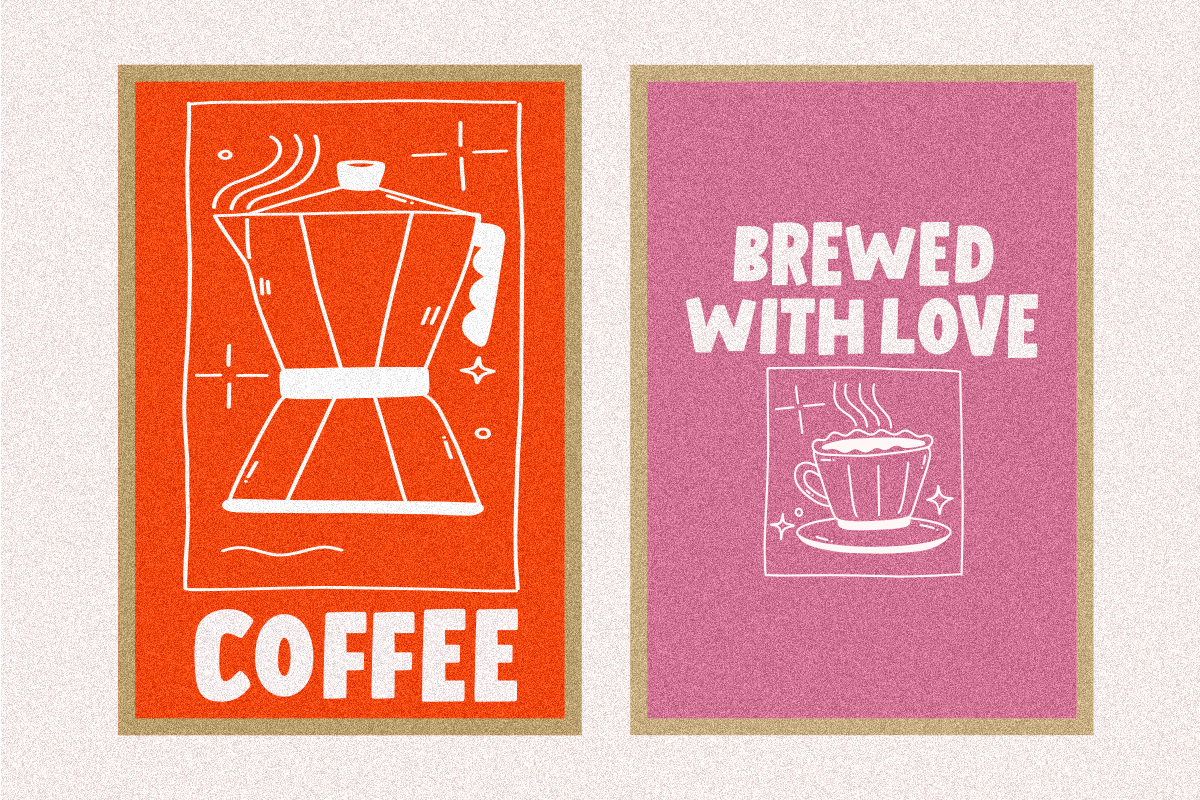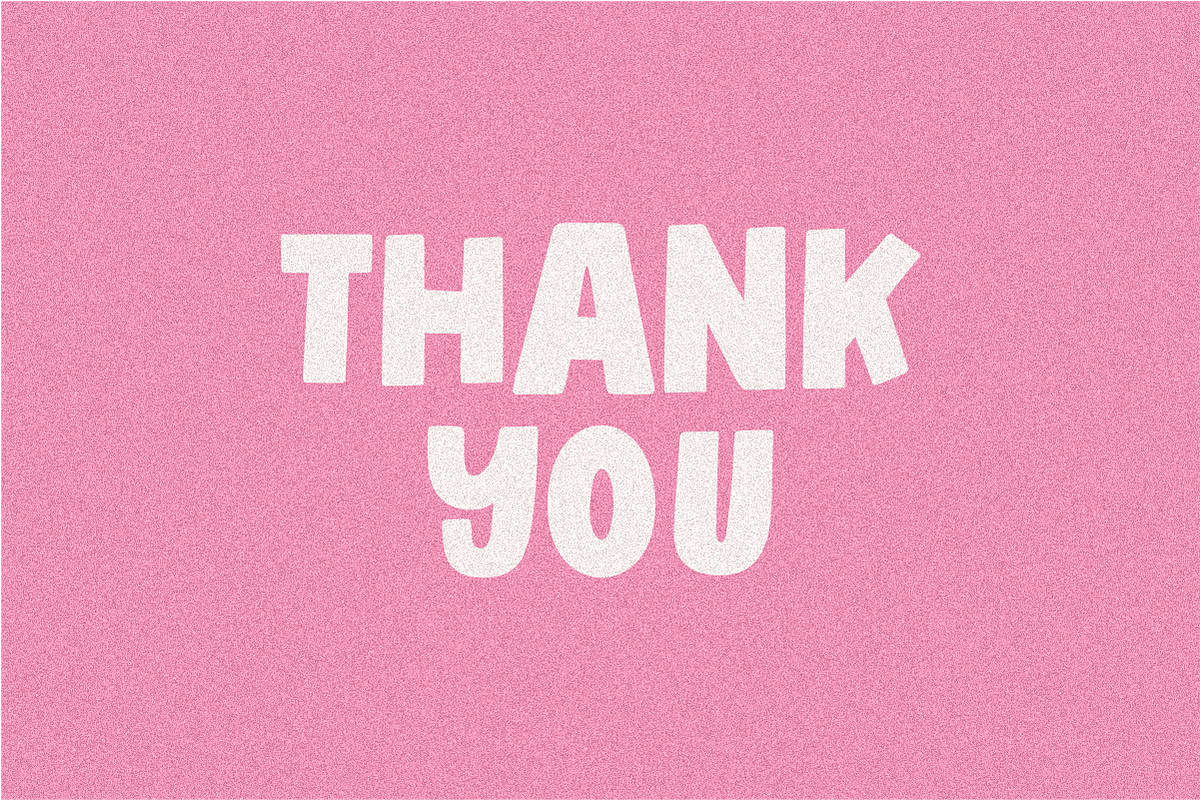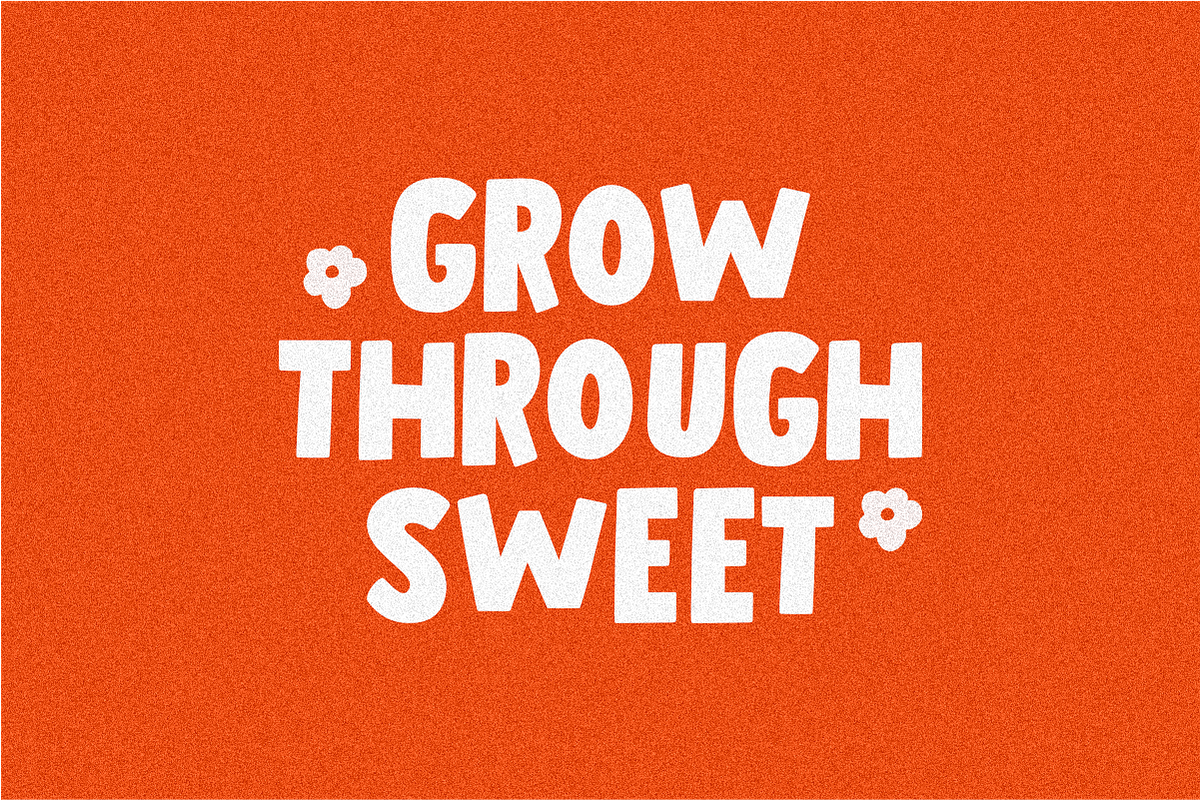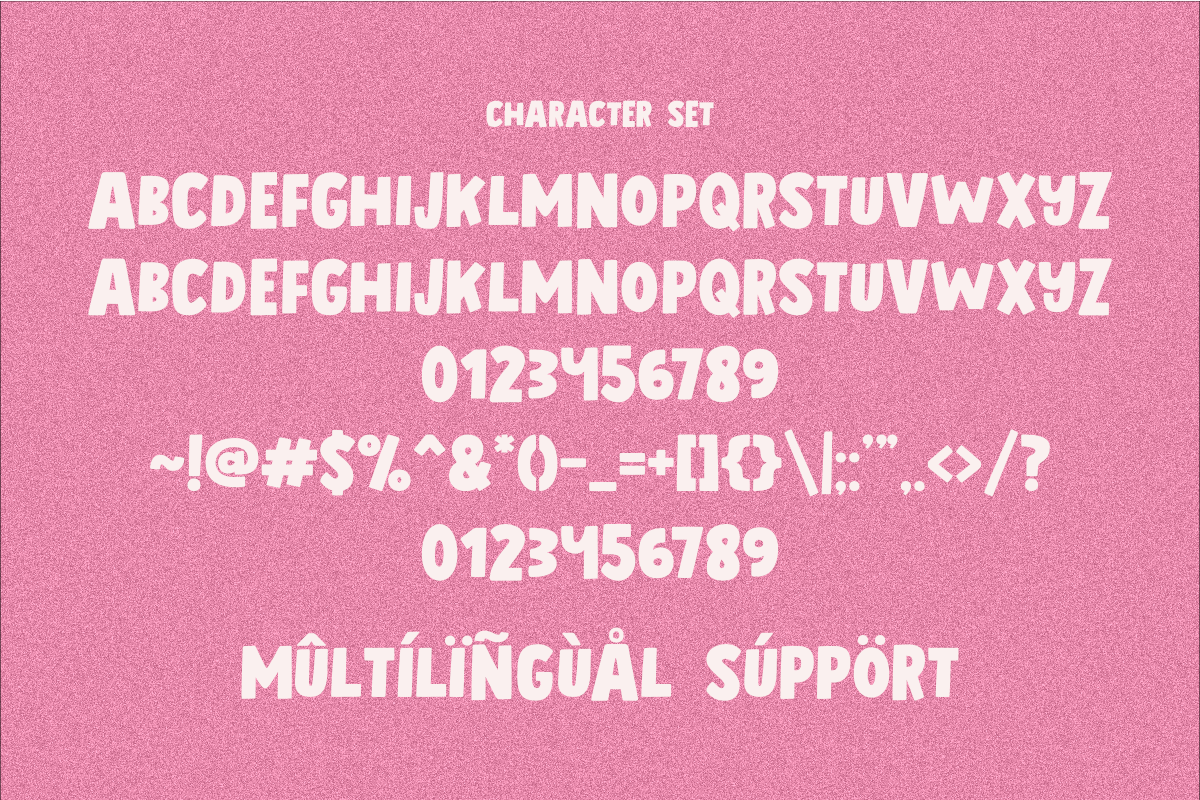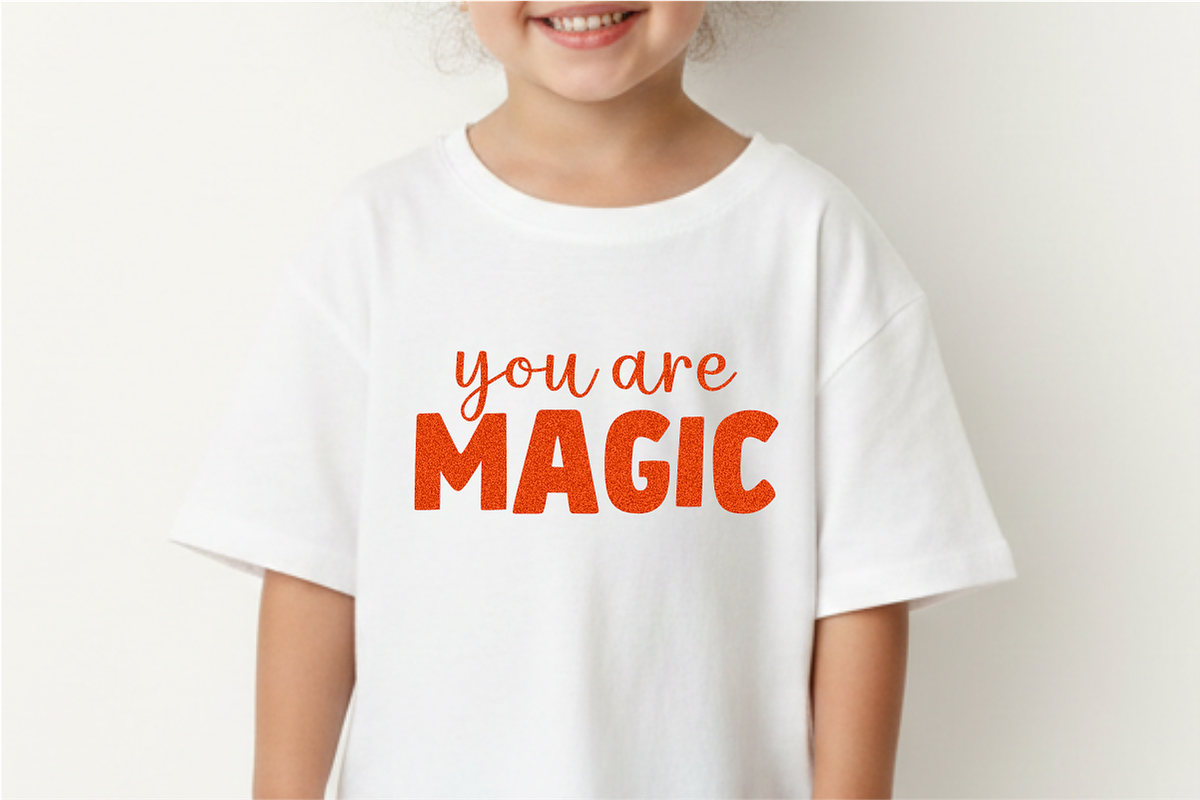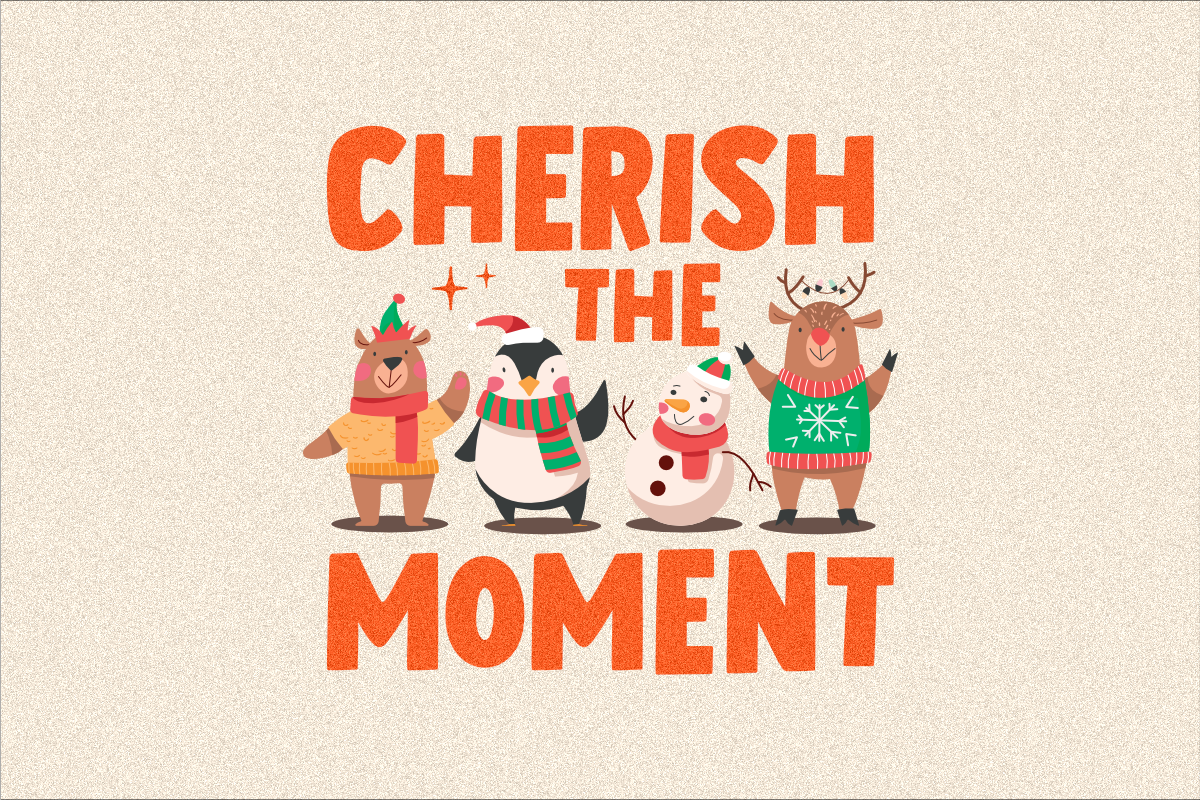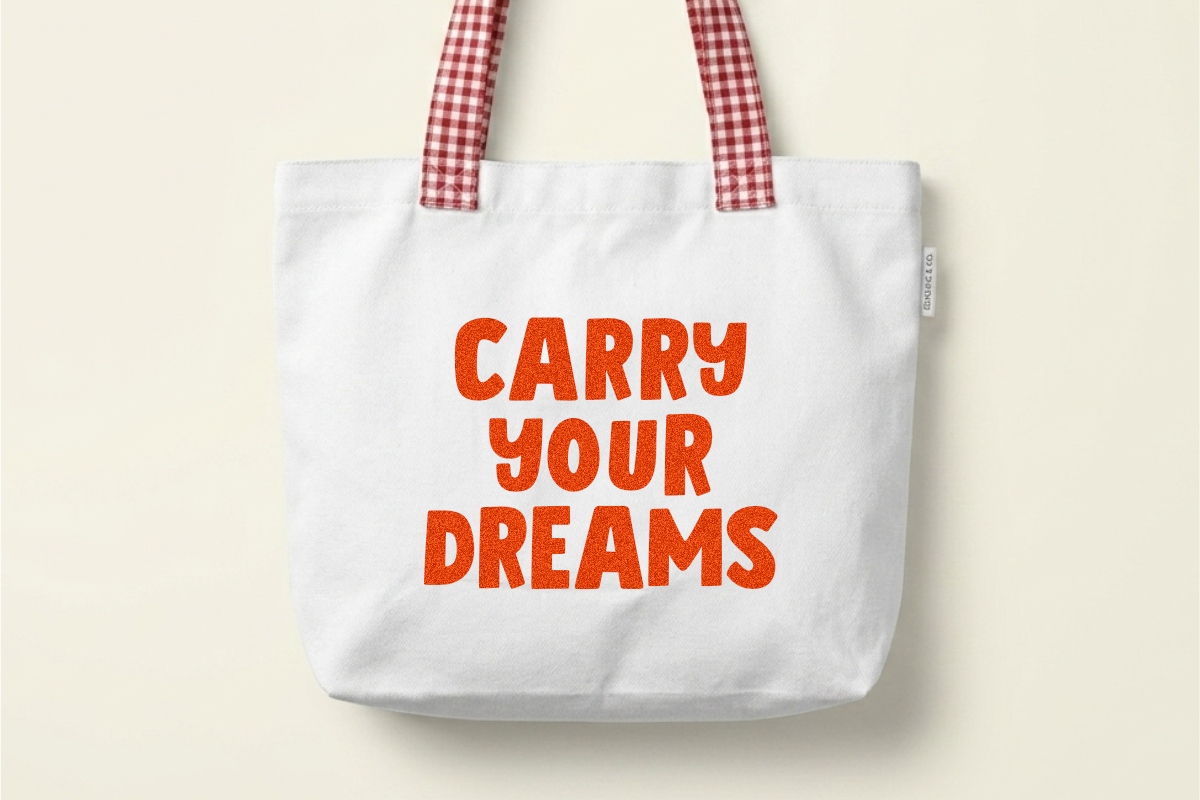
Strawberry - Handwritten Display
Strawberry is a charming and playful handwritten display font that adds a sweet, organic touch to your creative projects. With its approachable and whimsical letterforms, this typeface is perfect for children's branding, cute stickers, nursery decor, birthday invitations, and cheerful social media graphics. Its unique and friendly aesthetic ensures your designs stand out with a handcrafted personality. Whether you are designing for toy packaging, school projects, or summer-themed stationery, Strawberry brings a delightful and joyful vibe to every design.